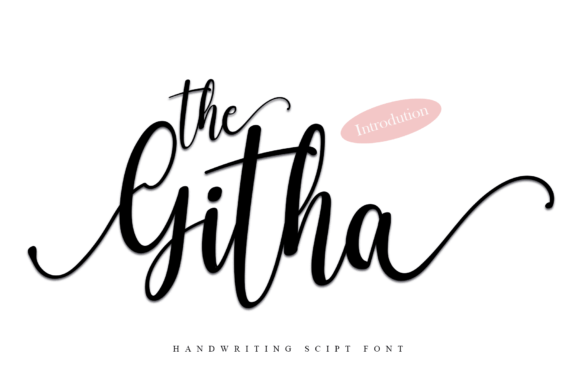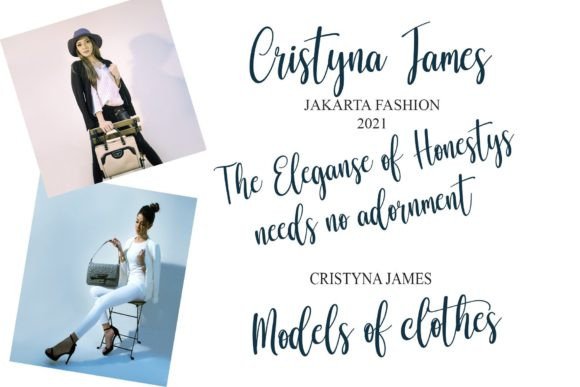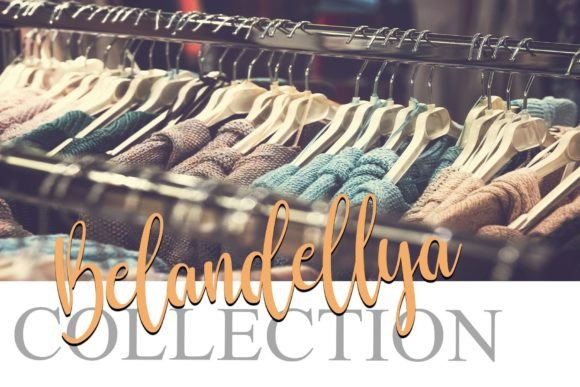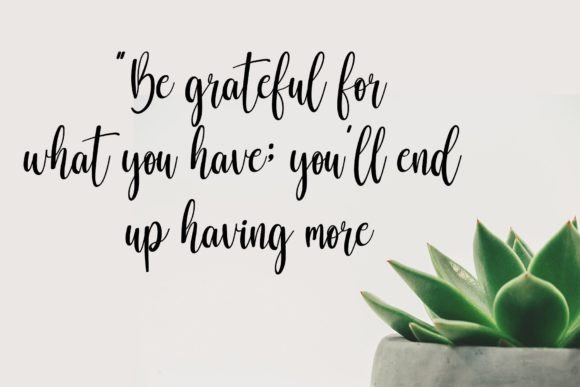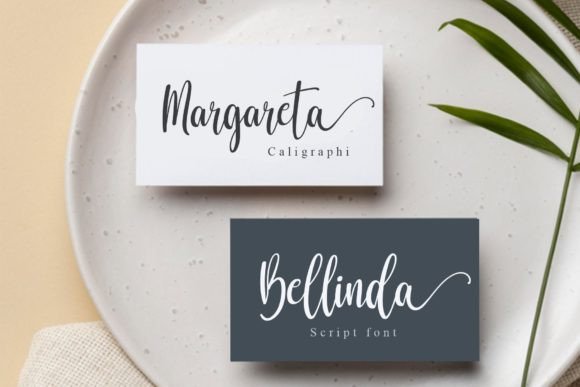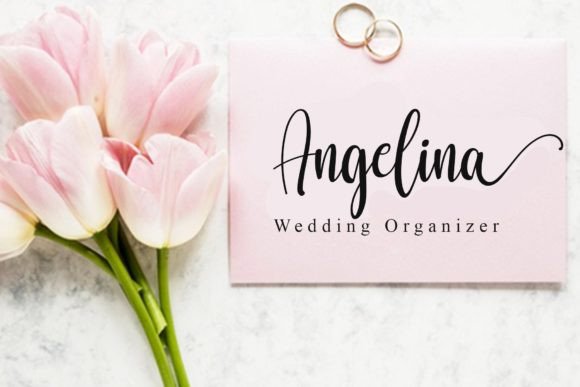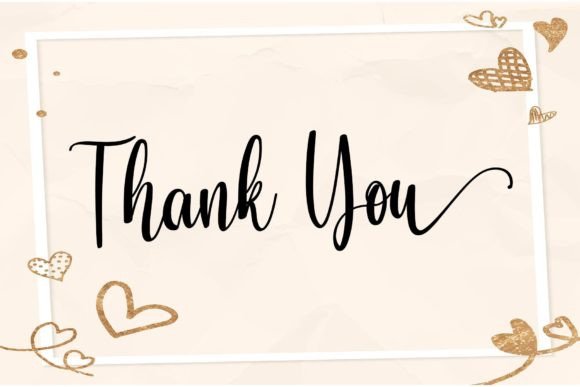
The Githa Font
“The Githa” is an exquisite handwriting font that exudes elegance, featuring beautiful character changes that blend classic decorative script with a modern touch. Meticulously designed with high attention to detail, it presents an elegant style that adds sophistication to any project.
The font’s graceful character changes contribute to its overall charm, creating a unique blend of classic and modern aesthetics. Each letter is crafted with precision, resulting in a script that is not only decorative but also versatile in its application. Whether you’re working on invitations, branding, or any other creative project, “The Githa” adds a touch of refined elegance.
The PUA encoding of “The Githa” enhances your creative freedom, allowing easy access to a plethora of amazing glyphs and ligatures. This feature provides you with the tools to personalize and customize your designs effortlessly, making the font a versatile and user-friendly choice for various design applications.
Imagine the impact of “The Githa” on your creative projects—each letter becomes a work of art, contributing to an overall aesthetic that is both classic and contemporary. Its elegant handwriting style elevates the visual appeal, creating a sense of timeless beauty.
Incorporate “The Githa” into your design toolkit, and experience the seamless fusion of classic and modern elements. Whether you’re developing invitations, logos, or any other creative endeavor, let this font be the elegant signature that adds a touch of sophistication to your designs.